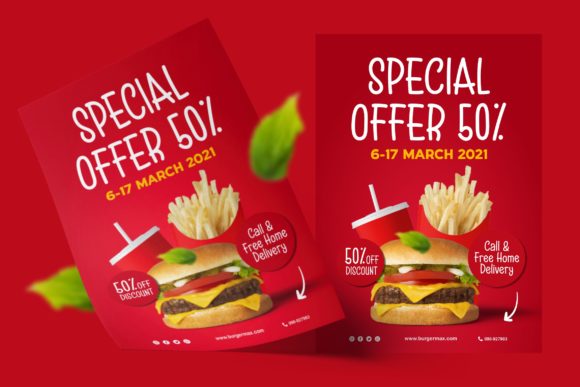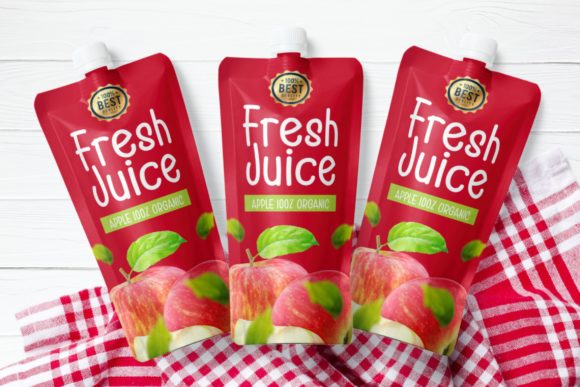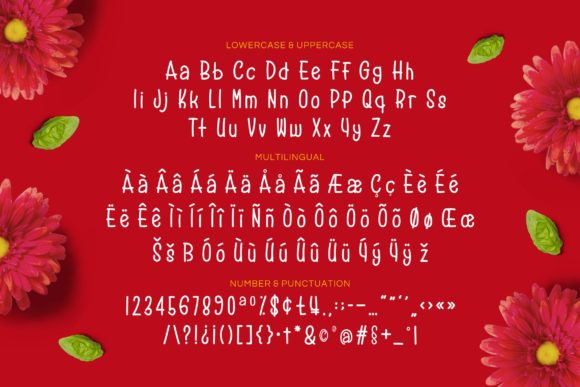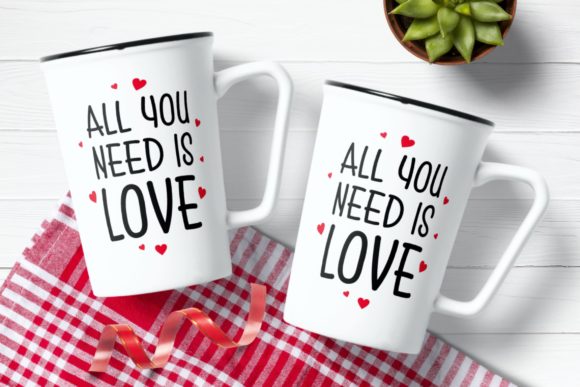
Introduction to Reds Velvetos Font Font
Fonts play a crucial role in design, and the Reds Velvetos Font font is a typeface that brings both character and versatility to any project. Whether you’re working on a branding project, a website, or a print design, the Reds Velvetos Font font offers a unique style that can elevate your work.
Reds Velvetos is a jolly and simple display font.
This font is perfect for children themed designs, especially when combined with bright colors .
Key Features of Reds Velvetos Font Font
Why Choose Reds Velvetos Font Font?
The Reds Velvetos Font font is more than just a typeface – it’s a design tool that helps you communicate your message with style and clarity. Its unique character set and versatile design make it suitable for a wide range of applications, from elegant invitations to bold headlines.
With its carefully crafted letterforms and balanced proportions, the Reds Velvetos Font font ensures readability and visual appeal across all mediums.
What makes Reds Velvetos Font font special?
The Reds Velvetos Font font stands out with its unique design, exceptional readability, and versatility across various design applications.